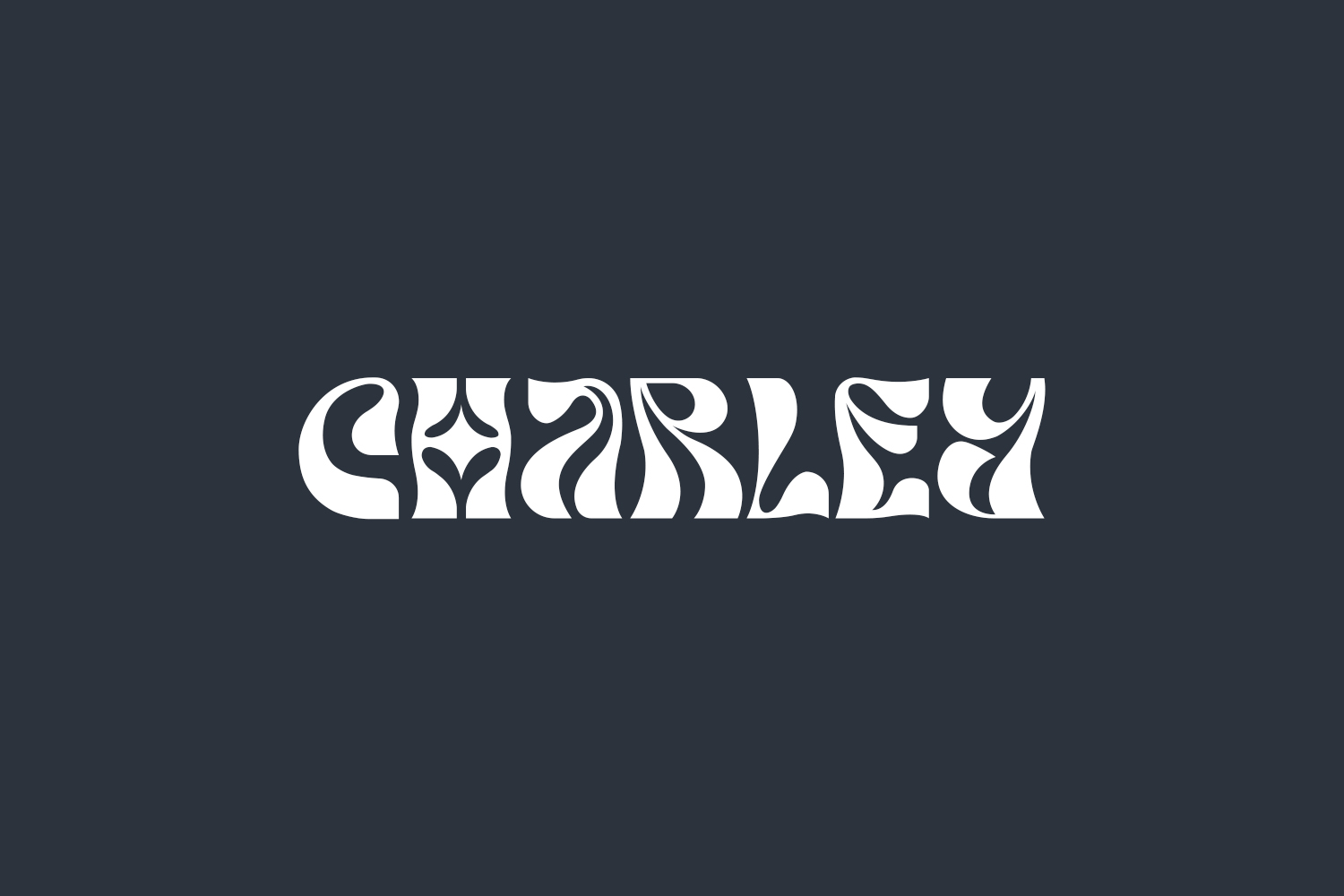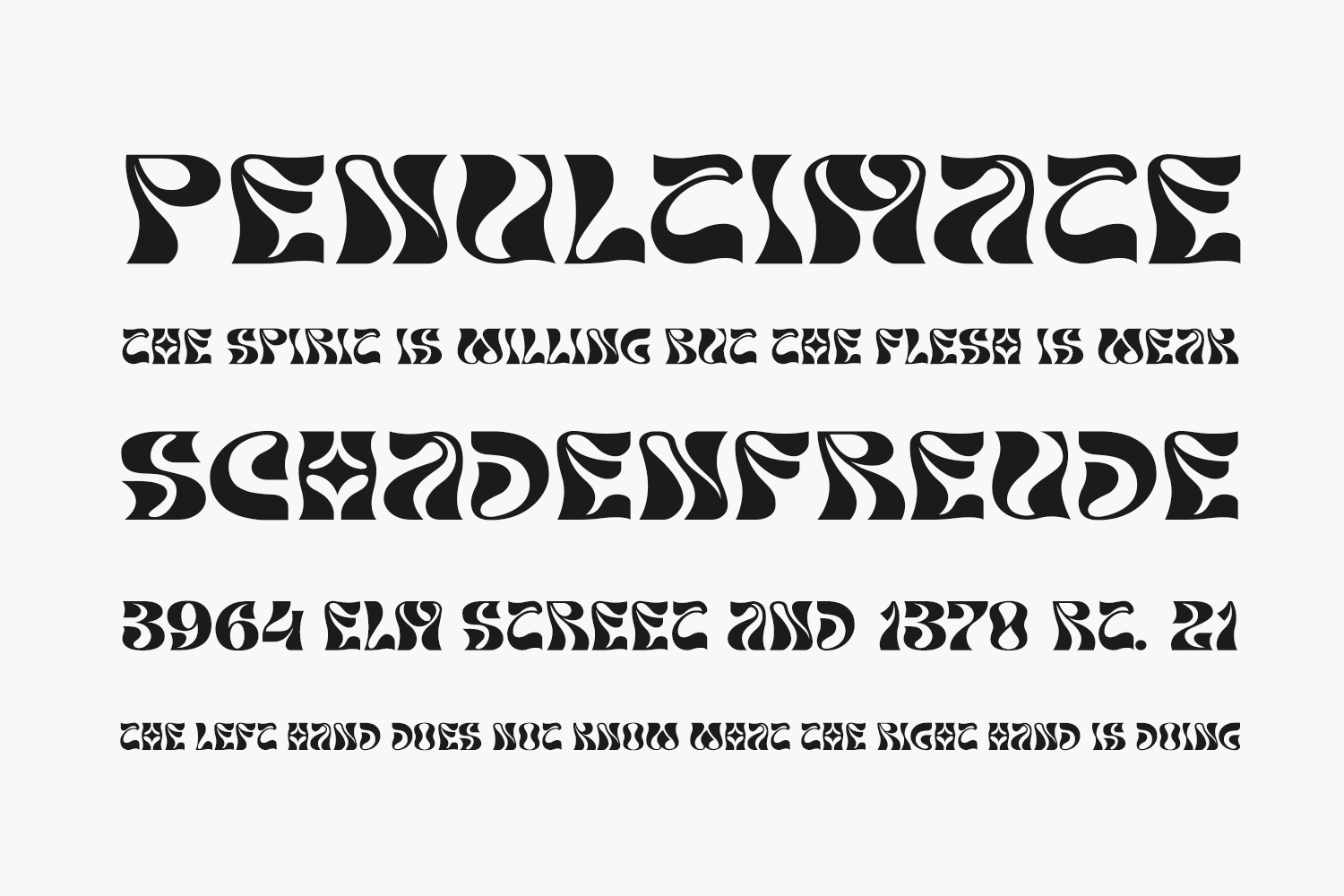
Introducing Charley Free Font, a captivating and dynamic display font that exudes coolness and a sense of individuality. Its wavy and unique design makes it an ideal choice for creating elegant and luxurious logos, captivating book or movie titles, fashion brands that demand attention, eye-catching magazine layouts, trendy clothing designs, stunning lettering projects, inspiring quotes, and much more. Charley Free Font is free for personal use only. Please purchase the full version for commercial use.